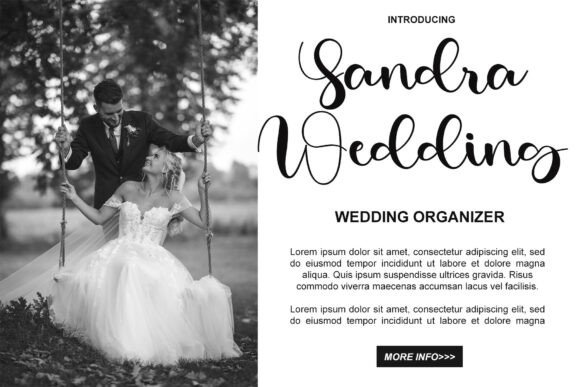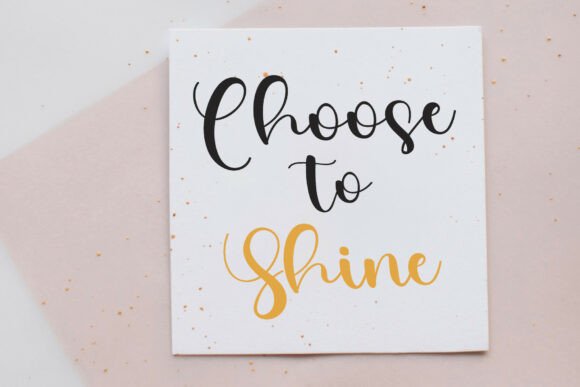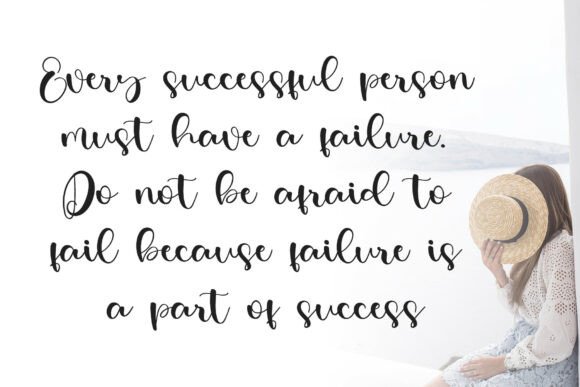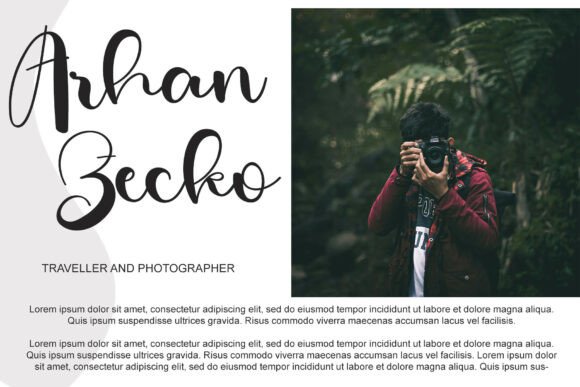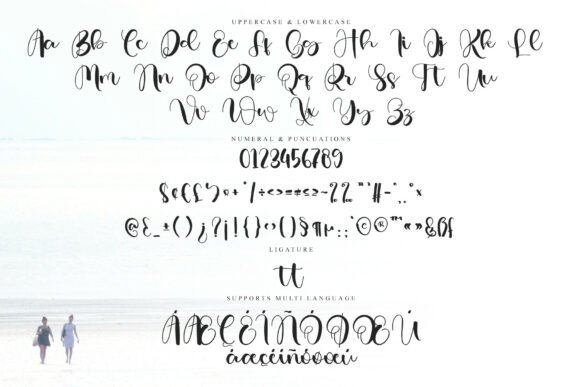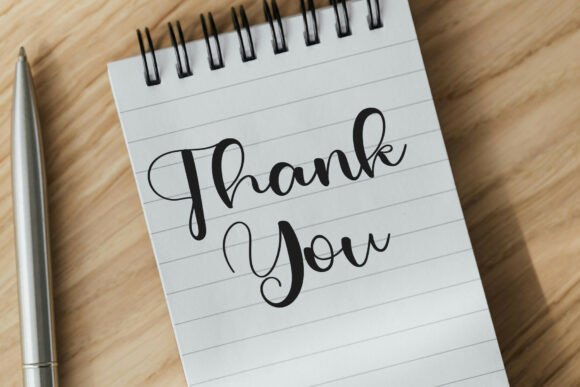
Candlelight Font: Adding a Touch of Elegance and Whimsy to Your Designs
Are you looking for a font that exudes warmth, romance, and playfulness? Look no further than Candlelight, a sweet and cursive handwritten font that’s perfect for a variety of design projects. In this article, we’ll dive into the features and benefits of Candlelight, and explore how you can use it to elevate your designs.
What is Candlelight Font?
Candlelight is a beautiful, handcrafted font that’s designed to add a touch of elegance and whimsy to your designs. Its gentle, cursive script and sweet letterforms make it perfect for creating romantic and feminine designs. Whether you’re working on a branding project, wedding invitation, or greeting card, Candlelight is sure to impress.
Key Features of Candlelight Font
- Sweet and Cursive Handwritten Style: Candlelight’s unique and charming style is perfect for creating designs that are both elegant and playful.
- Versatile: This font can be used on a variety of design projects, from branding and logos to wedding invitations and greeting cards.
- Easy to Read: Despite its cursive style, Candlelight is easy to read, making it perfect for body text and headlines.
- Fancy yet Casual: Candlelight strikes the perfect balance between elegance and casualness, making it suitable for a wide range of design projects.
Use Cases for Candlelight Font
Candlelight is a versatile font that can be used in a variety of design projects, including:
- Branding and Logo Design: Create a unique and memorable brand identity with Candlelight’s elegant and cursive style.
- Wedding Invitations and Stationery: Add a touch of romance and whimsy to your wedding designs with Candlelight’s sweet and feminine style.
- Greeting Cards and Invitations: Create beautiful and heartfelt greeting cards and invitations with Candlelight’s elegant script.
- Fashion and Lookbook Design: Use Candlelight to add a touch of elegance and sophistication to your fashion designs and lookbooks.
- Marketing and Promotion: Create eye-catching marketing materials, such as brochures and flyers, with Candlelight’s unique and playful style.
Tips for Using Candlelight Font
Here are some tips for getting the most out of Candlelight:
- Pair with Other Fonts: Experiment with pairing Candlelight with other fonts to create a unique and visually appealing design.
- Use on High-Quality Backgrounds: Candlelight looks best on high-quality backgrounds, such as white or light-colored textures.
- Experiment with Colors: Try out different colors and color combinations to find the perfect match for your design.
- Pay Attention to Kerning: Make sure to adjust the kerning to ensure that your text is evenly spaced and visually appealing.
Candlelight is a beautiful and versatile font that’s perfect for designers and crafters looking to add a touch of elegance and whimsy to their designs. With its sweet and cursive handwritten style, Candlelight is suitable for a wide range of design projects, from branding and logos to wedding invitations and greeting cards. By following the tips outlined in this article, you can get the most out of Candlelight and create stunning designs that will leave a lasting impression.